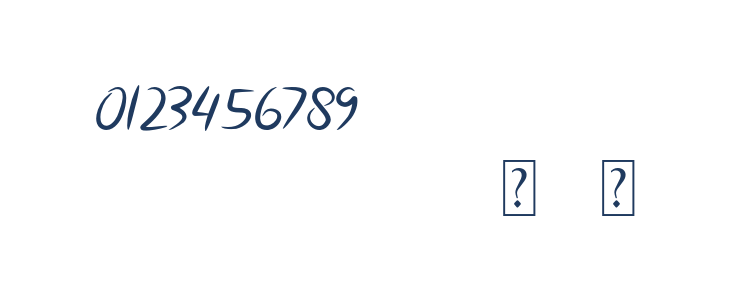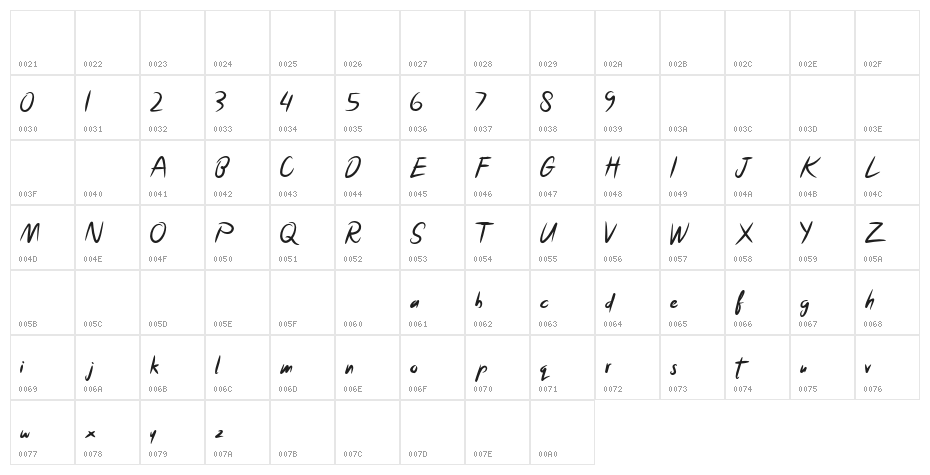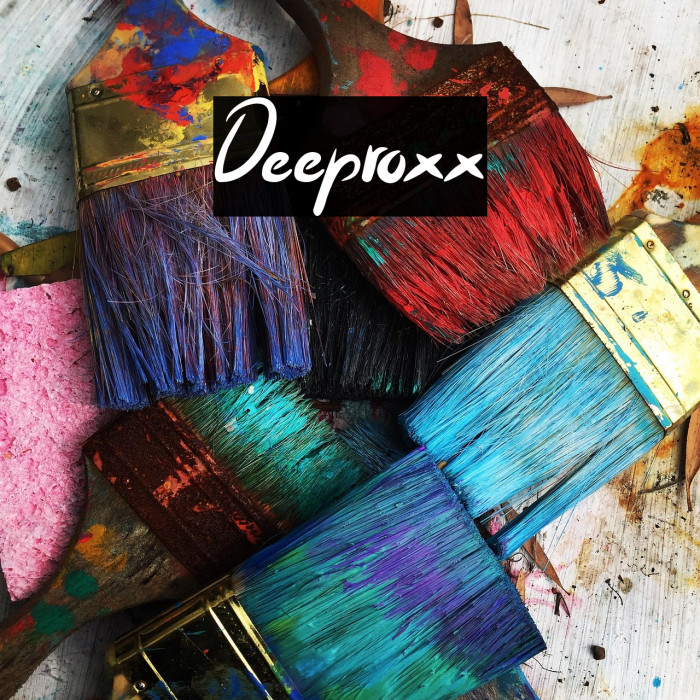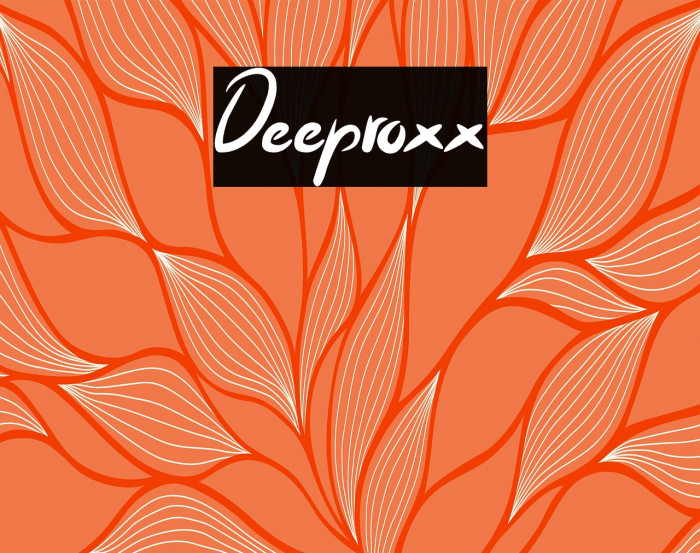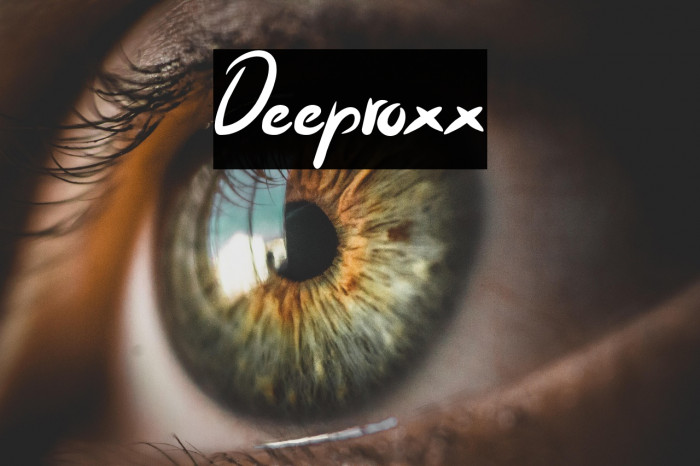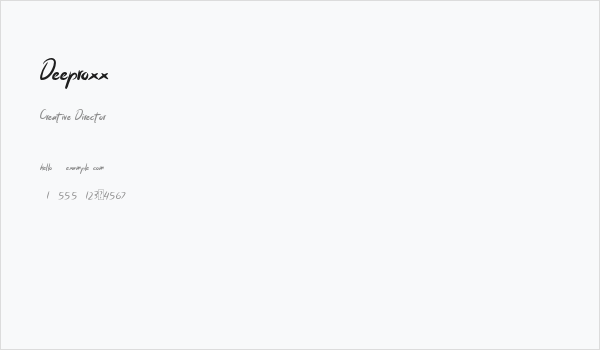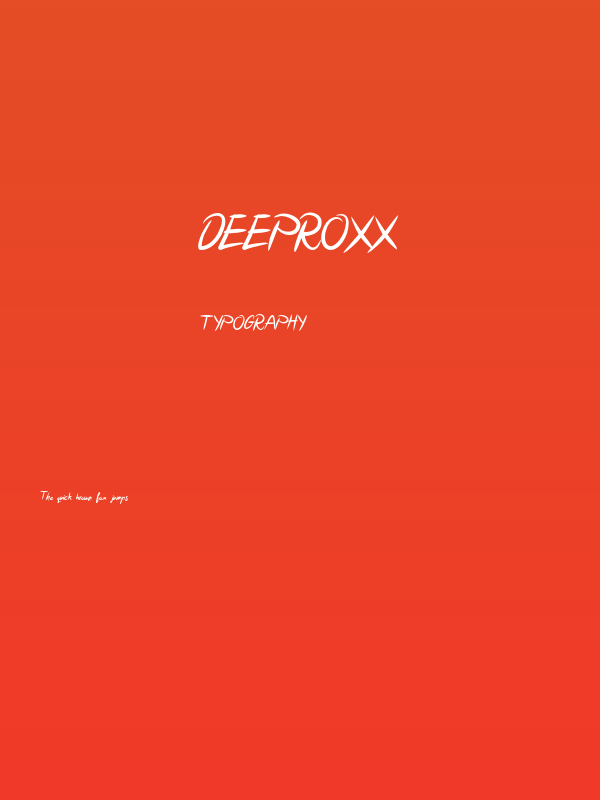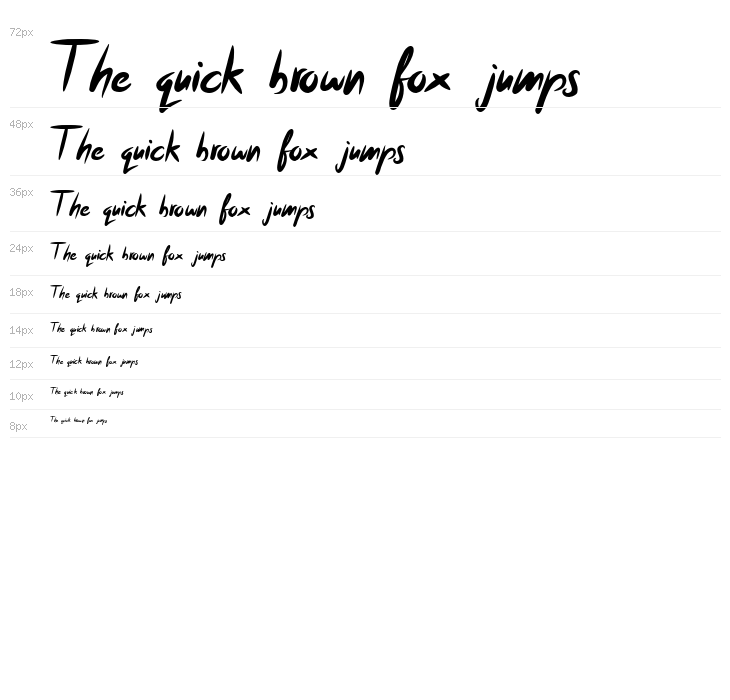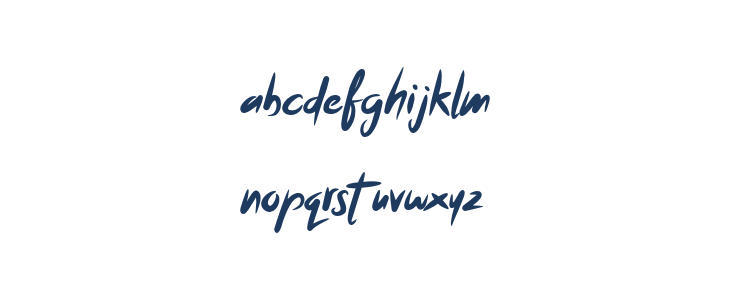
Deeproxx Font
Deeproxx Description
This font features a dynamic and fluid script style, characterized by its smooth, flowing lines and elegant curves. The uppercase letters are bold and slightly slanted, giving a sense of movement and energy. The lowercase letters maintain a consistent style, with a playful yet sophisticated appearance. The numerals are well-integrated, matching the overall aesthetic with their rounded and slightly italicized form. The special characters complement the set, maintaining the same fluidity and style. This font is perfect for projects that require a touch of elegance and flair, such as invitations, branding, and creative designs.
| Use Case | Logos, Headlines, Invitations |
| Proposed Projects | Ideal for invitations, branding, creative designs, and any project needing elegance. |